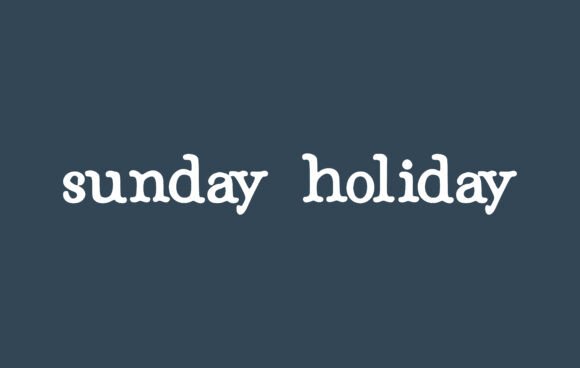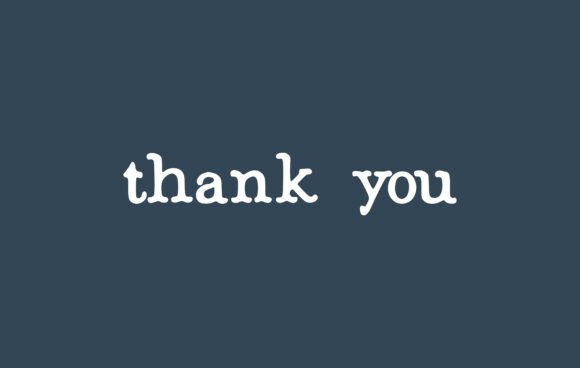
Introduction to Friendly Craft Font
Have you ever stumbled upon the perfect font that instantly elevates your creative project? For designers, finding that one special font can be a game-changer. It’s the moment when all the pieces fall into place, and your design comes alive. That’s exactly what the Friendly Craft Font offers – a true favorite among designers.
As a serif font with a romantic touch, Friendly Craft Font is an authentic and high-quality design resource that can take your creative ideas to new heights. With its legibility and versatility, it’s perfect for various designs, from magazine headlines and social media to branding and wedding invitations.
Key Features of Friendly Craft Font
- Unique, handcrafted style with a friendly tone, perfect for crafting, DIY, and scrapbooking designs.
- Comes with a transparent background, allowing for easy integration into various design elements.
- Designed with a focus on legibility, making it perfect for use in a wide range of creative projects, from invitations to signage.
- Perfect for crafters, designers, and anyone looking for a unique and high-quality design resource.
Honest Review: Friendly Craft Font
As a designer, I’m always on the lookout for high-quality design resources that can elevate my creative projects. I recently came across the Friendly Craft Font, and I must say, it’s a gem! ✨
The font is free to download, which is always a bonus. The quality is top-notch, with a unique blend of rustic and modern elements that make it perfect for crafty and creative projects. The transparent background is a nice touch, allowing for easy layering and manipulation in design software.
Here are some of the things that I love about the Friendly Craft Font:
- Its versatility in design applications, from invitations to product packaging
- The subtle texture that adds depth and visual interest
- The wide range of languages supported, making it a great option for international projects
Of course, no font is perfect, and I did encounter some limitations:
- Some of the characters may not render correctly in certain fonts or sizes
- The font may not be suitable for very formal or professional projects
Overall, I’m thoroughly impressed with the Friendly Craft Font. It’s a great addition to any designer’s toolkit, and I highly recommend it for creative projects where a touch of whimsy and personality is needed.
Tips for Getting the Most Out of Friendly Craft Font
To get the most out of the Friendly Craft Font, use it on a transparent background to create a clean and modern look. You can also pair it with other fonts to create a unique and creative design.
The Friendly Craft Font is perfect for various creative projects, including:
- Blog posts and articles
- Business cards and brochures
- Invitations and event promotions